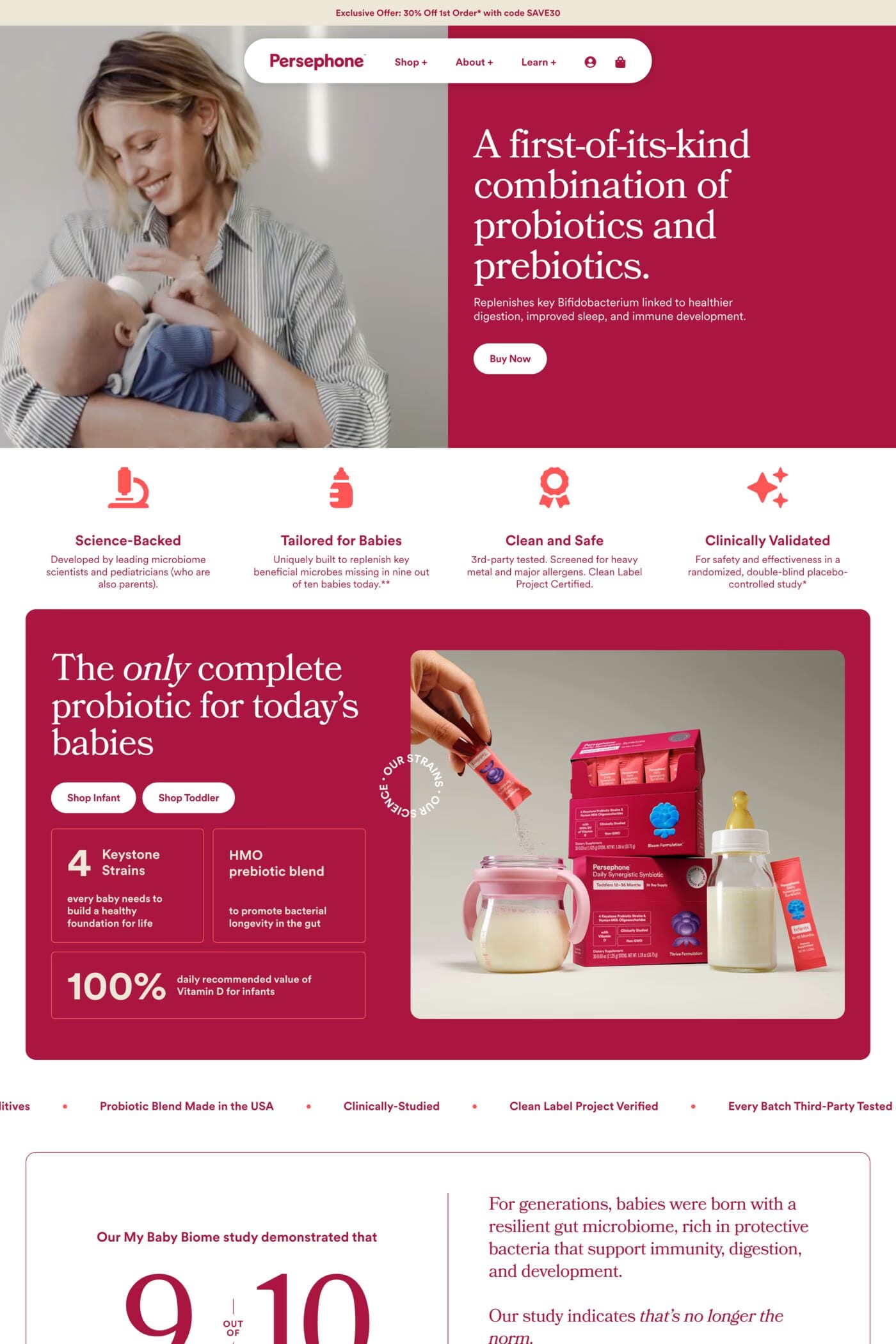
Bookmania (2011) combines the sturdy elegance of the original Bookman Oldstyle (1901) with the swashy exuberance of the Bookmans of the 1960s. With over 680 swash characters, more than any previous Bookman, the possibilities are endless.